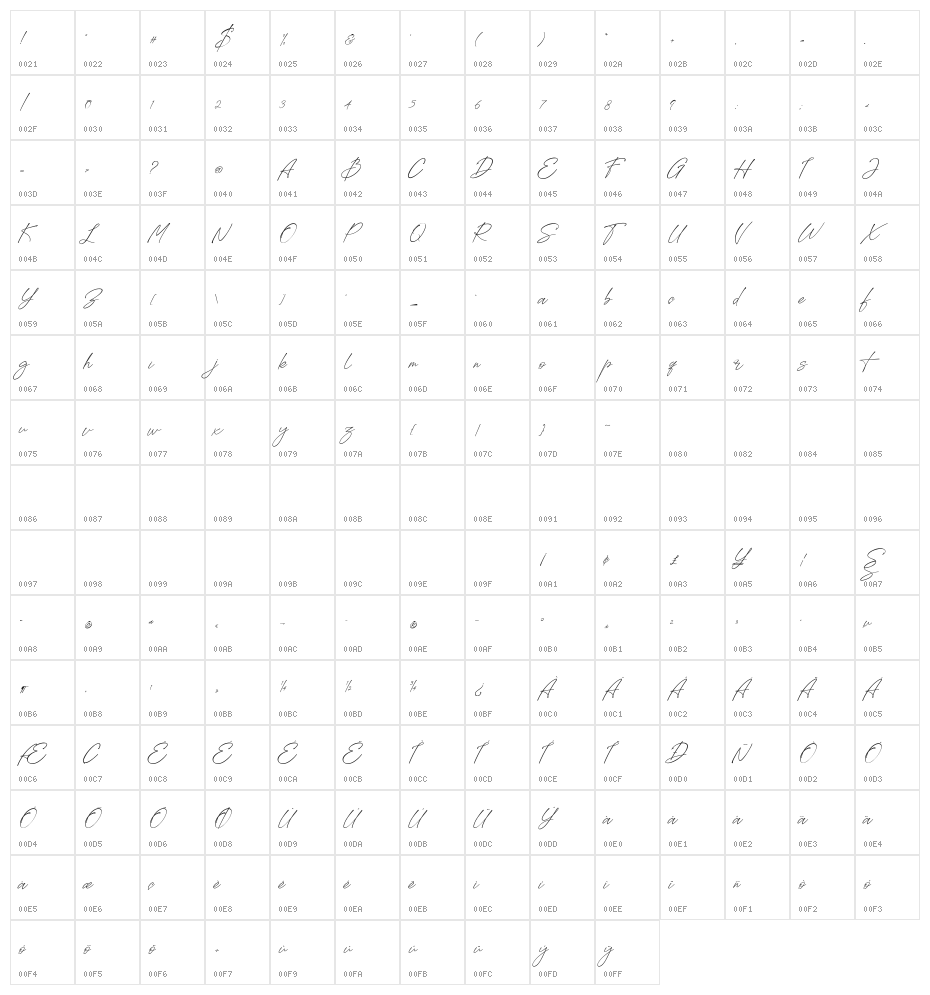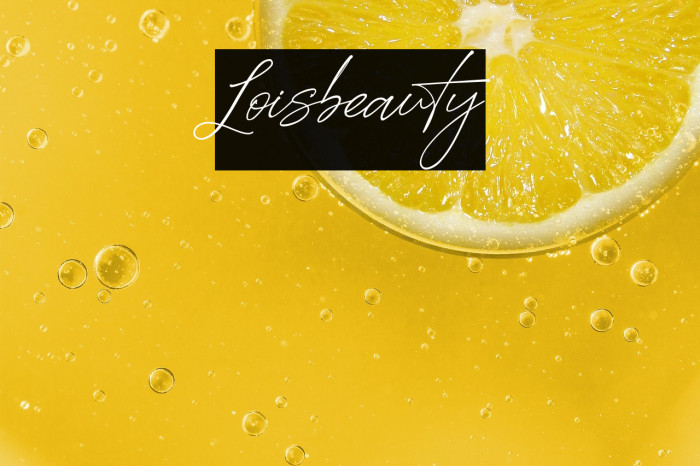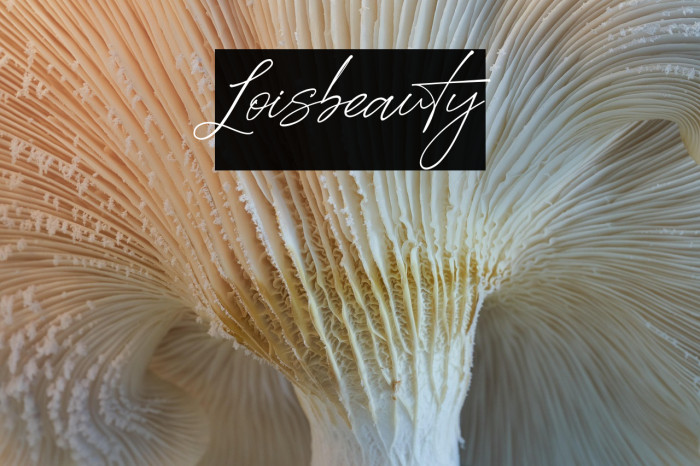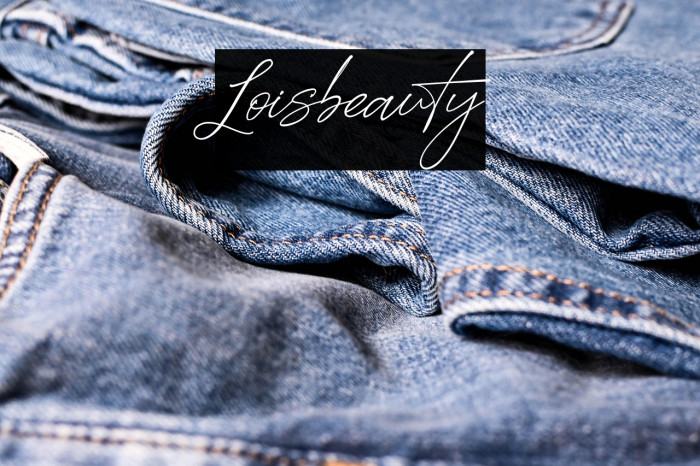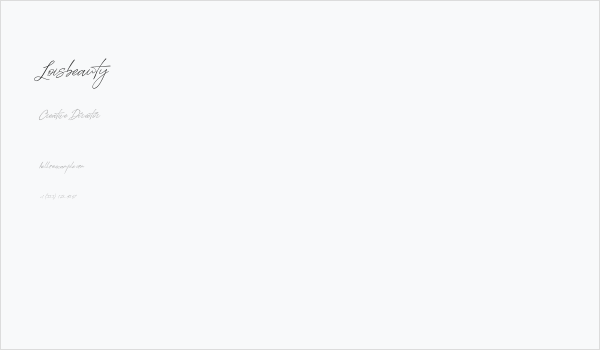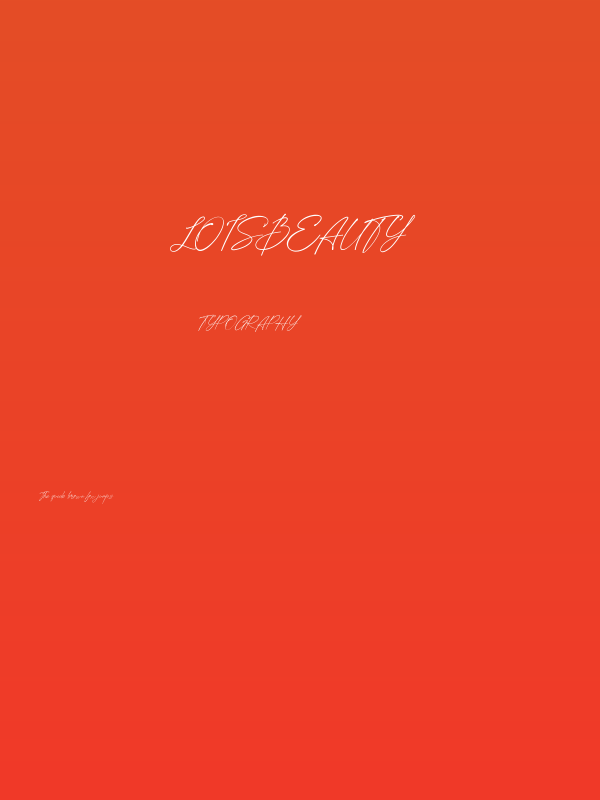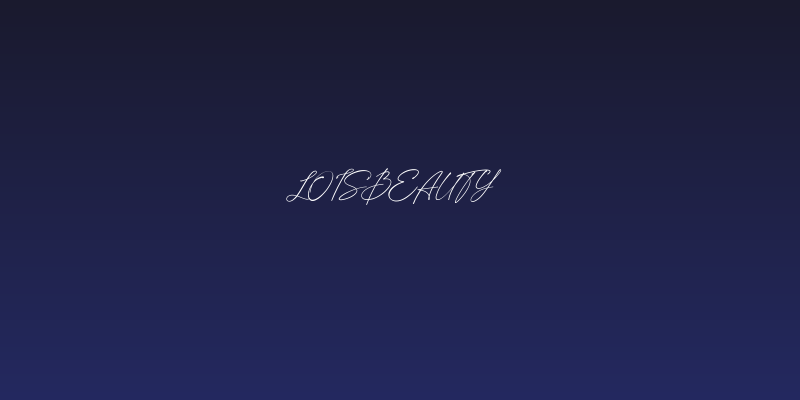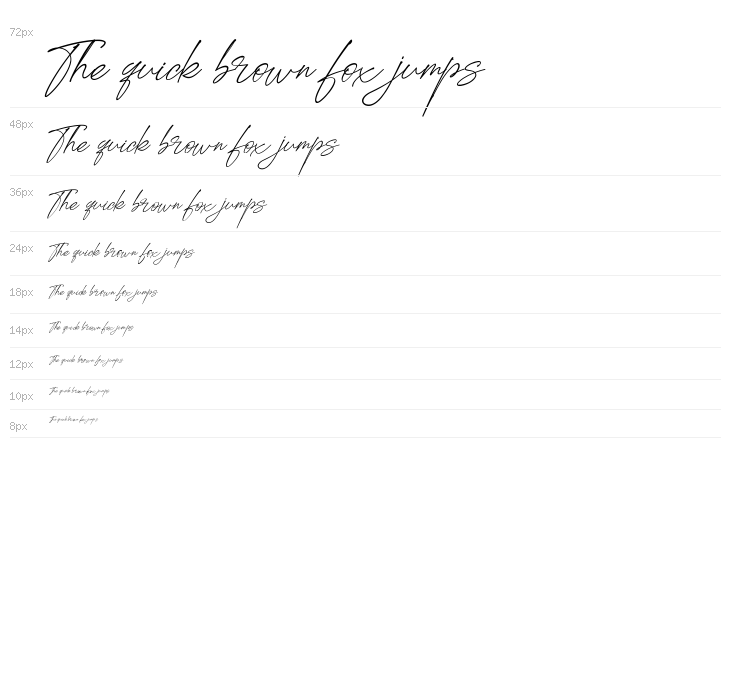
Loisbeauty Font
Loisbeauty Description
This elegant script font features a flowing, cursive style that mimics natural handwriting. The characters are connected, creating a seamless and fluid appearance. The strokes are thin and delicate, with a slight slant that adds to its graceful aesthetic. The uppercase letters are larger and more ornate, while the lowercase letters maintain a consistent and harmonious flow. The numbers and special characters are designed to match the overall style, ensuring a cohesive look across all text. This font exudes sophistication and charm, making it ideal for projects that require a personal and artistic touch.
| Overall Style | Elegant, Artistic |
| Proposed Projects | Ideal for wedding invitations, greeting cards, personal branding, and elegant logos. |